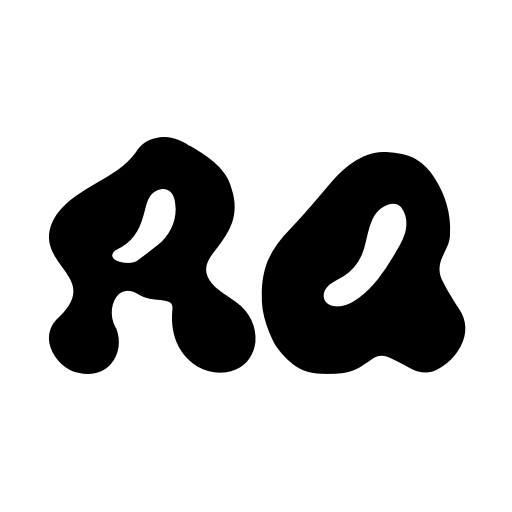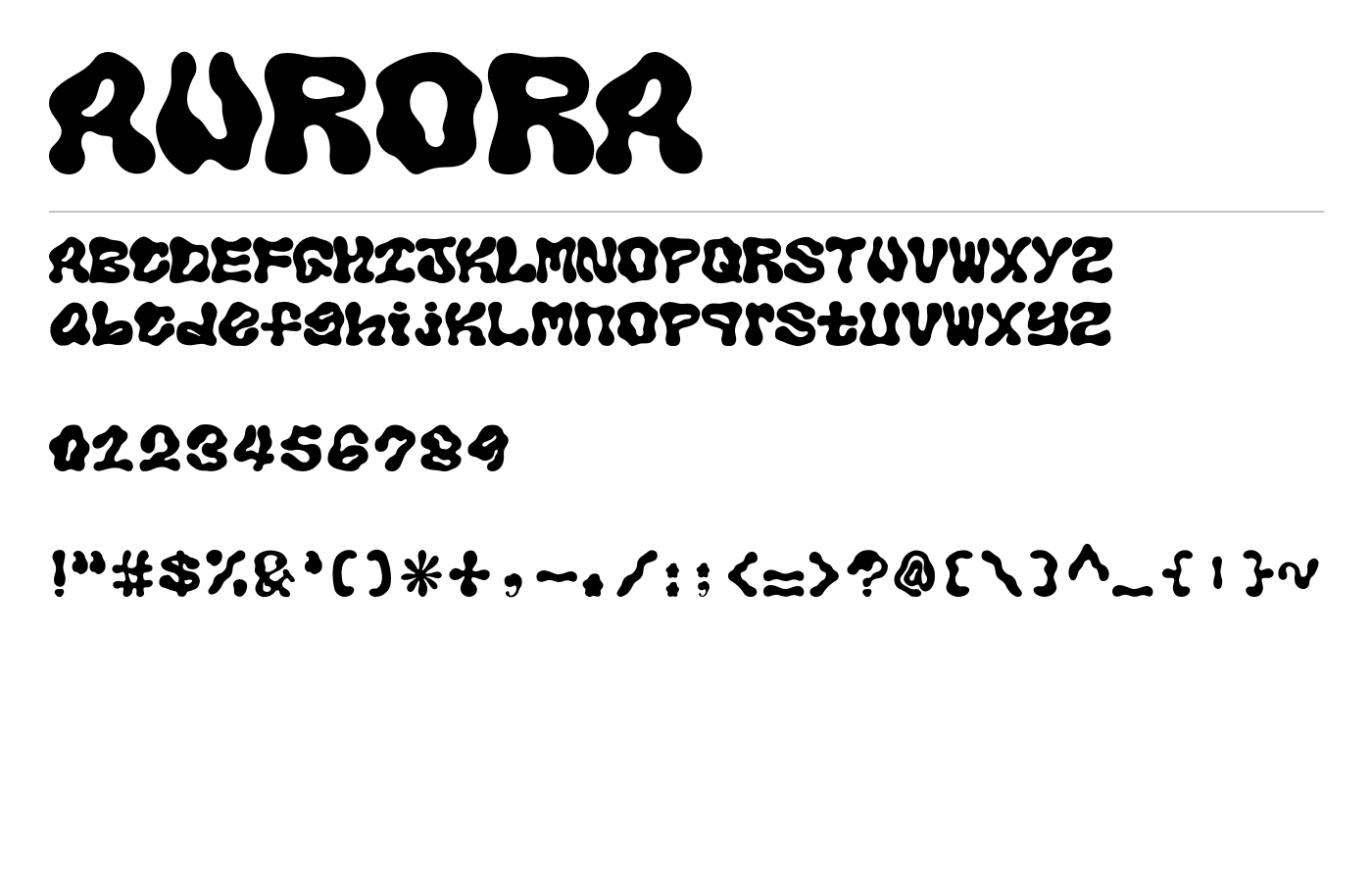
Aurora is a bold, playful display font with a unique, irregular shape that gives it a bubbly and organic feel. Its thick, soft strokes and quirky letterforms make it perfect for fun, creative projects like posters, branding, and packaging where a friendly, eye-catching style is desired. This font stands out best in large sizes and informal contexts, adding a lively and approachable character to any design.